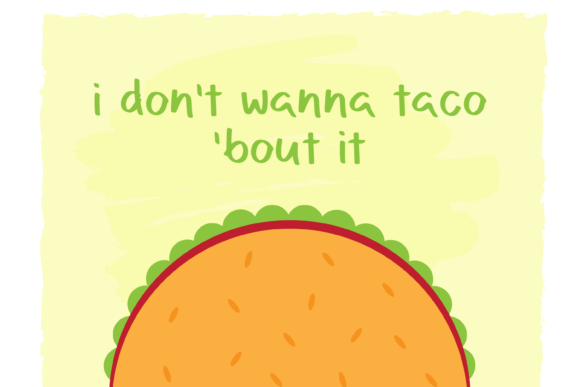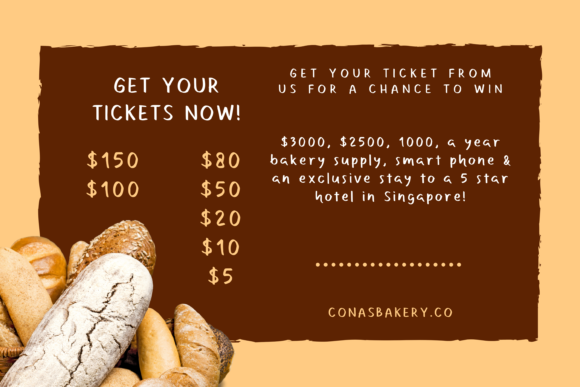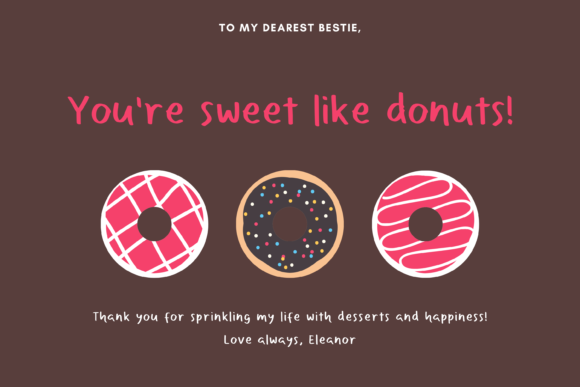
The Ultimate Font for Foodies: A Deep Dive into Foodlist Font
I’ll never forget the time I was working on a food menu project for a client, and I just couldn’t seem to find the perfect font. The design was supposed to be modern, yet cozy; elegant, yet approachable. I scoured the internet, tried out dozens of fonts, but nothing seemed quite right. That was until I stumbled upon Foodlist Font. It was like a breath of fresh air – the perfect blend of relaxed and adaptable, with a dash of playfulness. In this article, I’ll share my experience with Foodlist Font, and show you how to make the most of this amazing duo font.
An Honest Review: What I Love (and What I Don’t)
• ✅ Extremely versatile: Foodlist Font works beautifully on menus, posters, flyers, and prints.
• ✅ Unique character: The handwritten and dingbats combination is both modern and nostalgic.
• ✅ Highly legible: Even at smaller font sizes, Foodlist remains clear and easy to read.
• ✅ OpenType features: Access to a wide range of glyphs, stylistic alternates, and swashes.
The Not-So-Good Stuff 🤔
• ⚠️ Limited use in very formal or corporate settings: Foodlist is best suited for creative, food-related projects.
• ⚠️ Some characters may require manual kerning: Not a deal-breaker, but worth mentioning.
The Story Behind Foodlist Font: Designer Inspiration
Foodlist Font was designed with foodies in mind – a team of designers who wanted to create a font that would make food look as delicious as it tastes. Inspired by vintage cookbooks, food markets, and artisanal bakeries, they crafted a unique duo font that’s both modern and nostalgic. The result is a versatile font that’s perfect for food-related projects, from menus and posters to labels and packaging.
Q: What type of projects is Foodlist Font best suited for?
A: Foodlist Font is ideal for food-related projects, such as menus, posters, flyers, labels, and packaging.
Q: Does Foodlist Font support OpenType features?
A: Yes, Foodlist Font includes OpenType features like glyphs, stylistic alternates, and swashes.